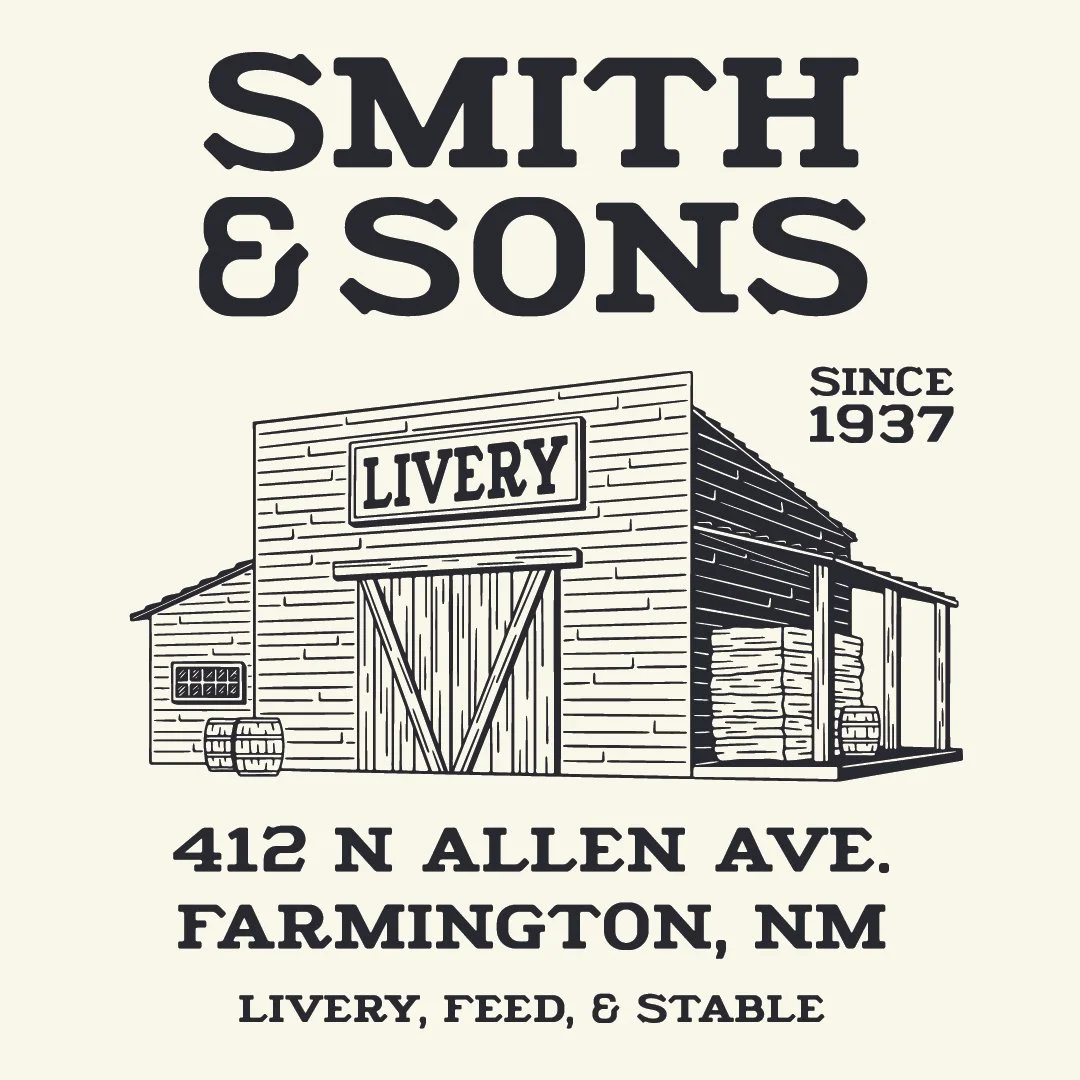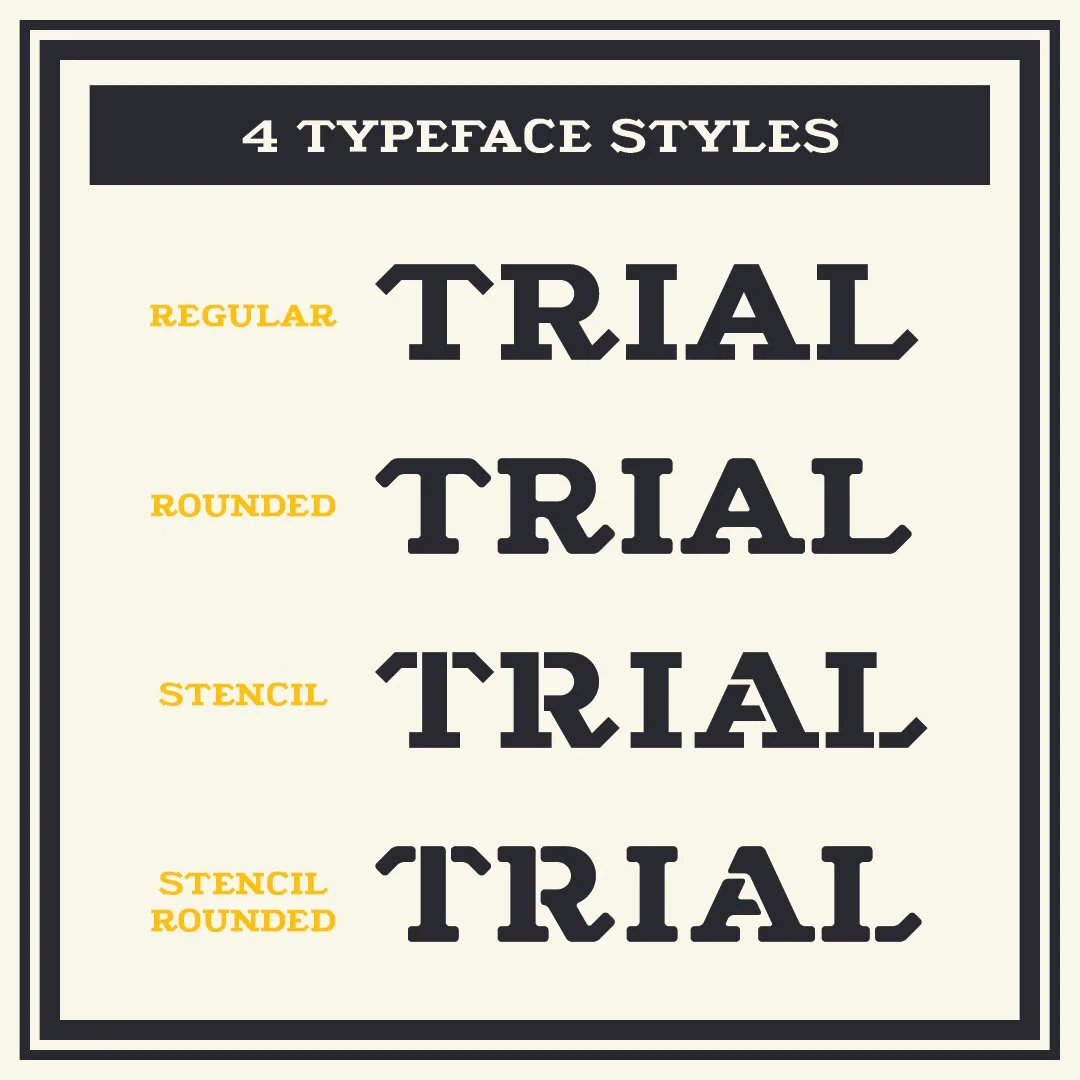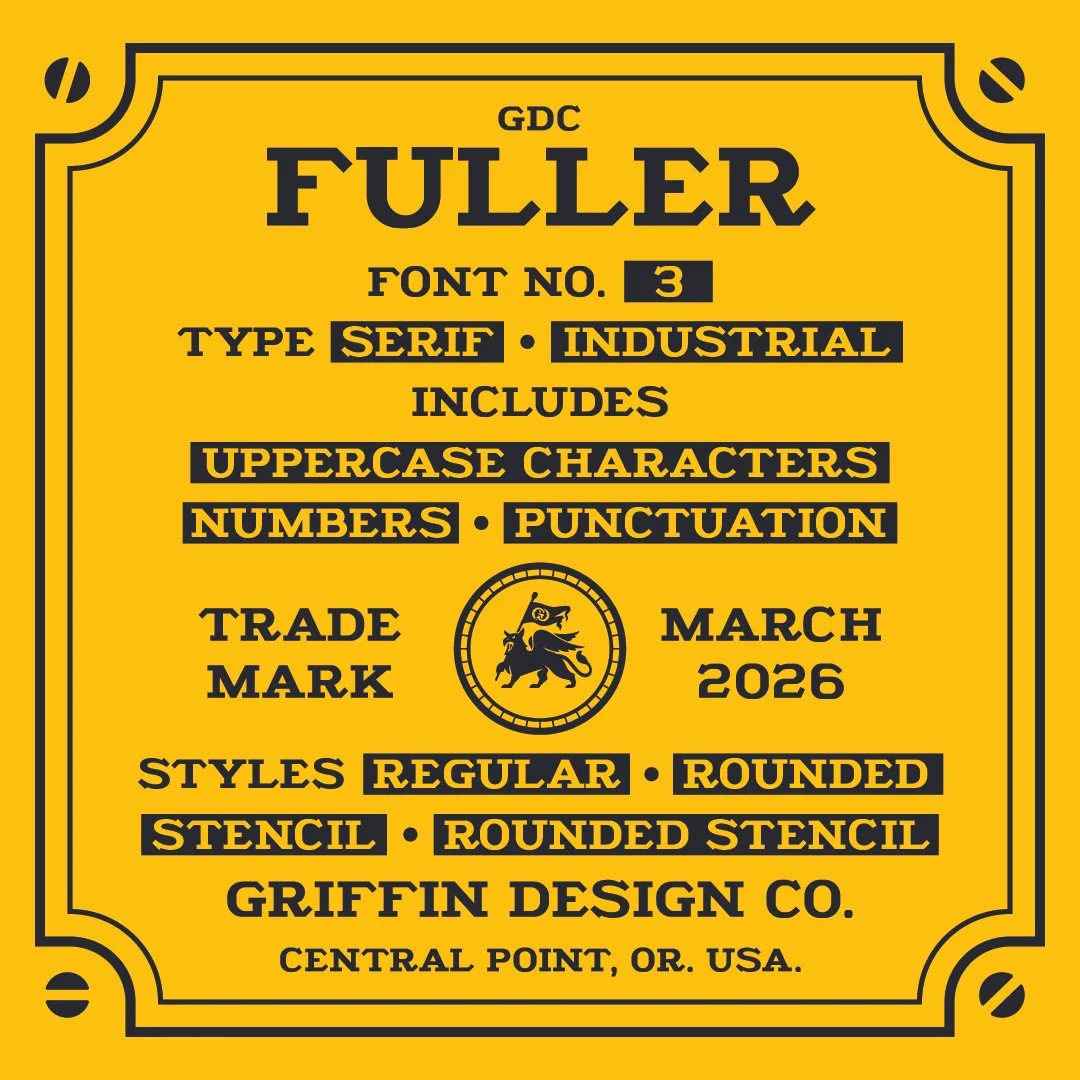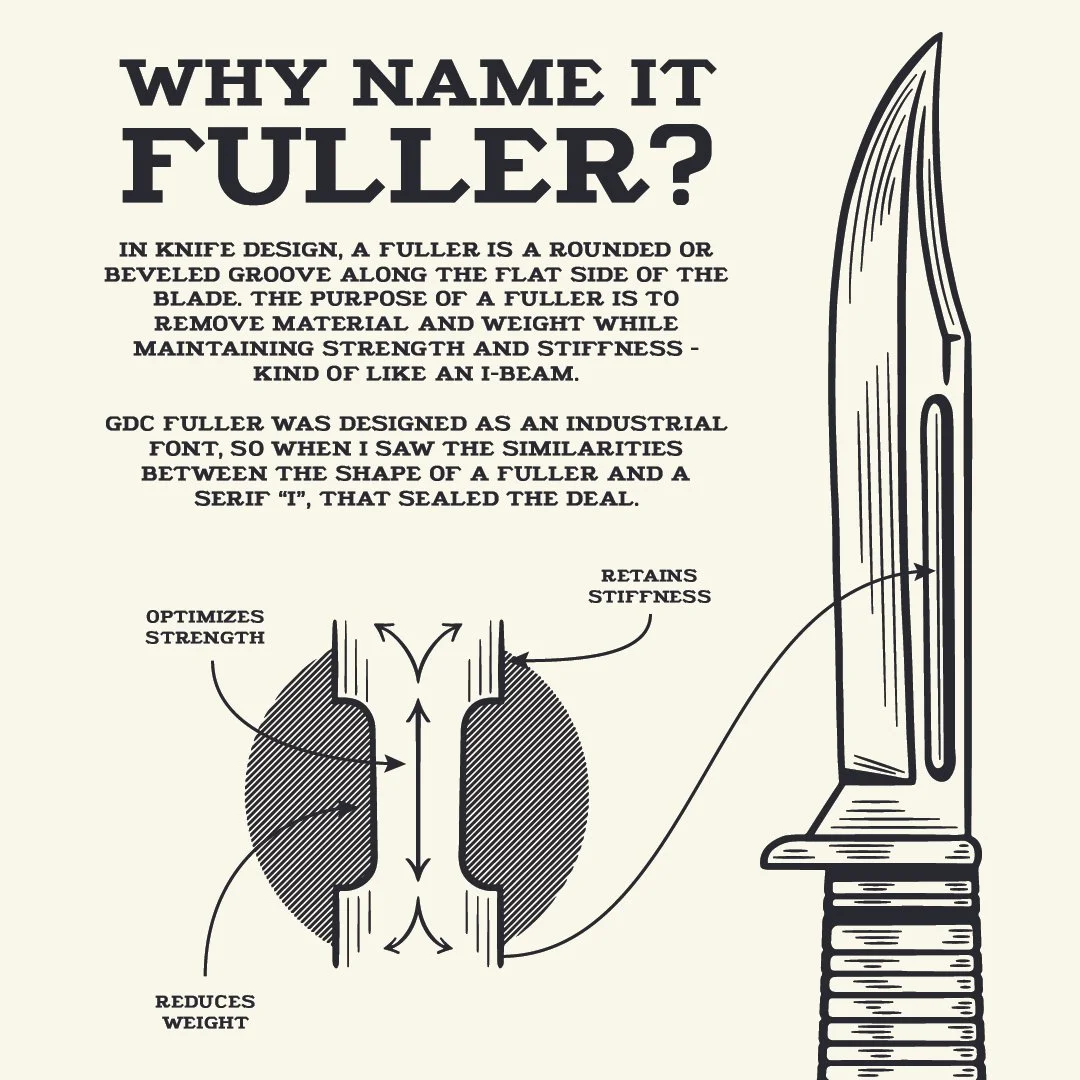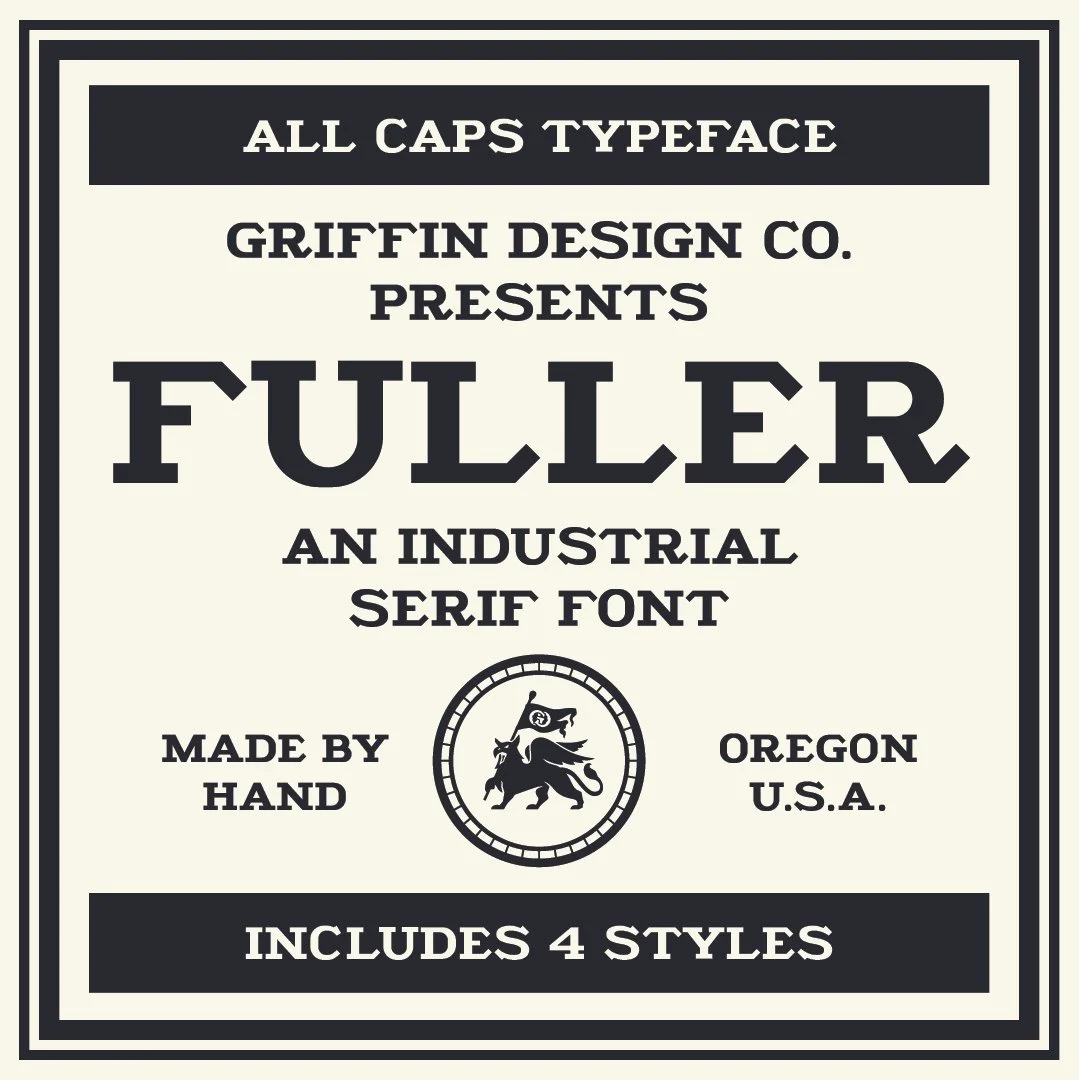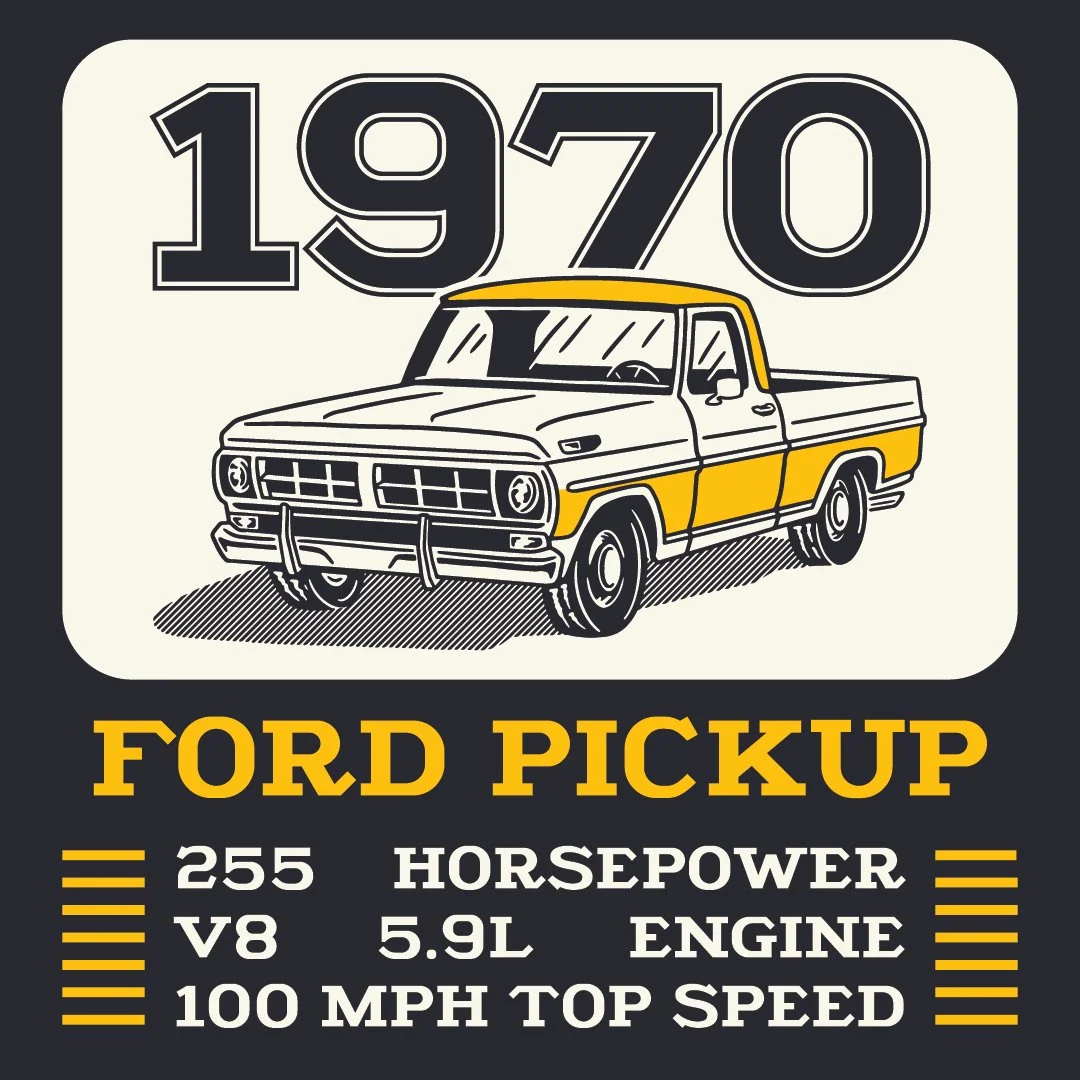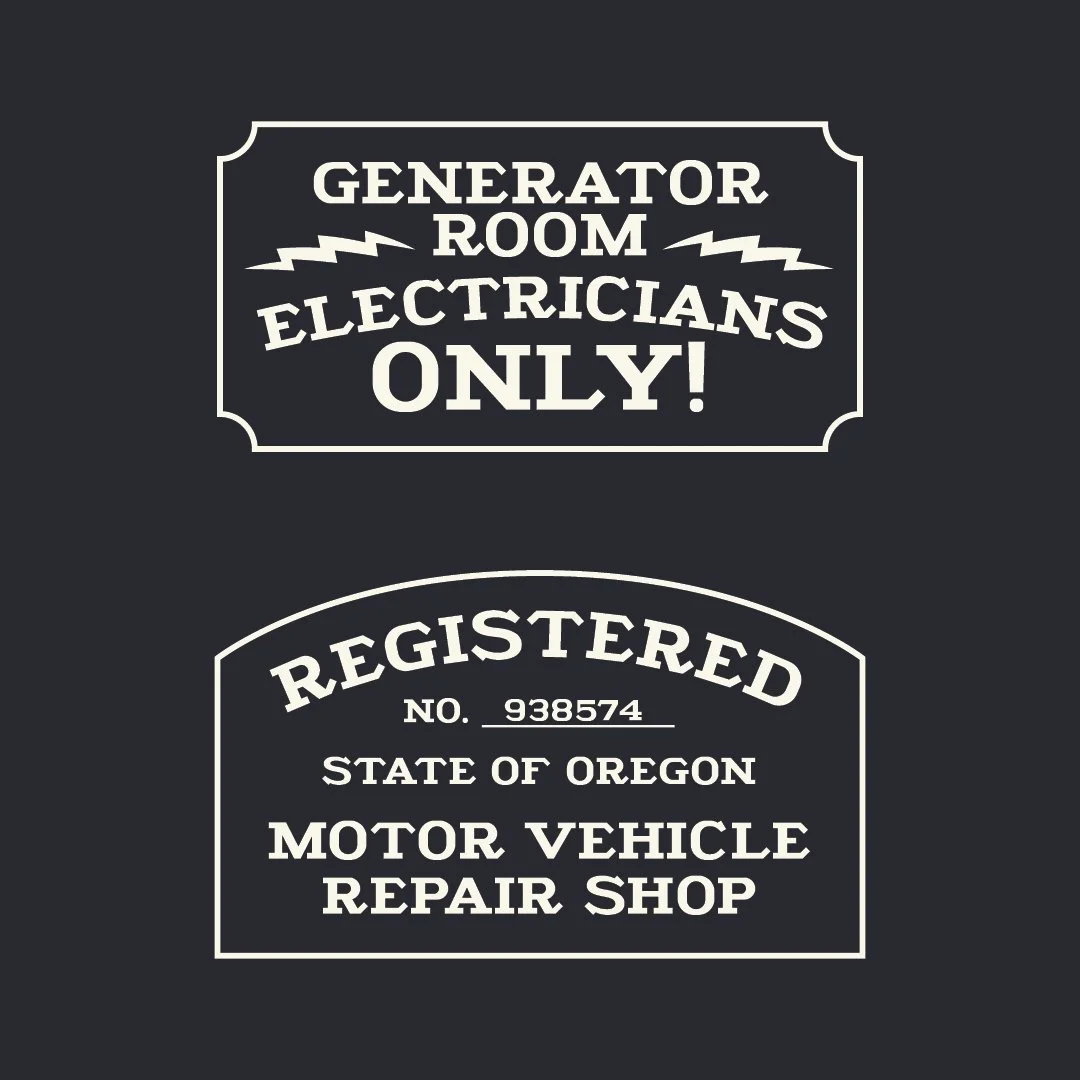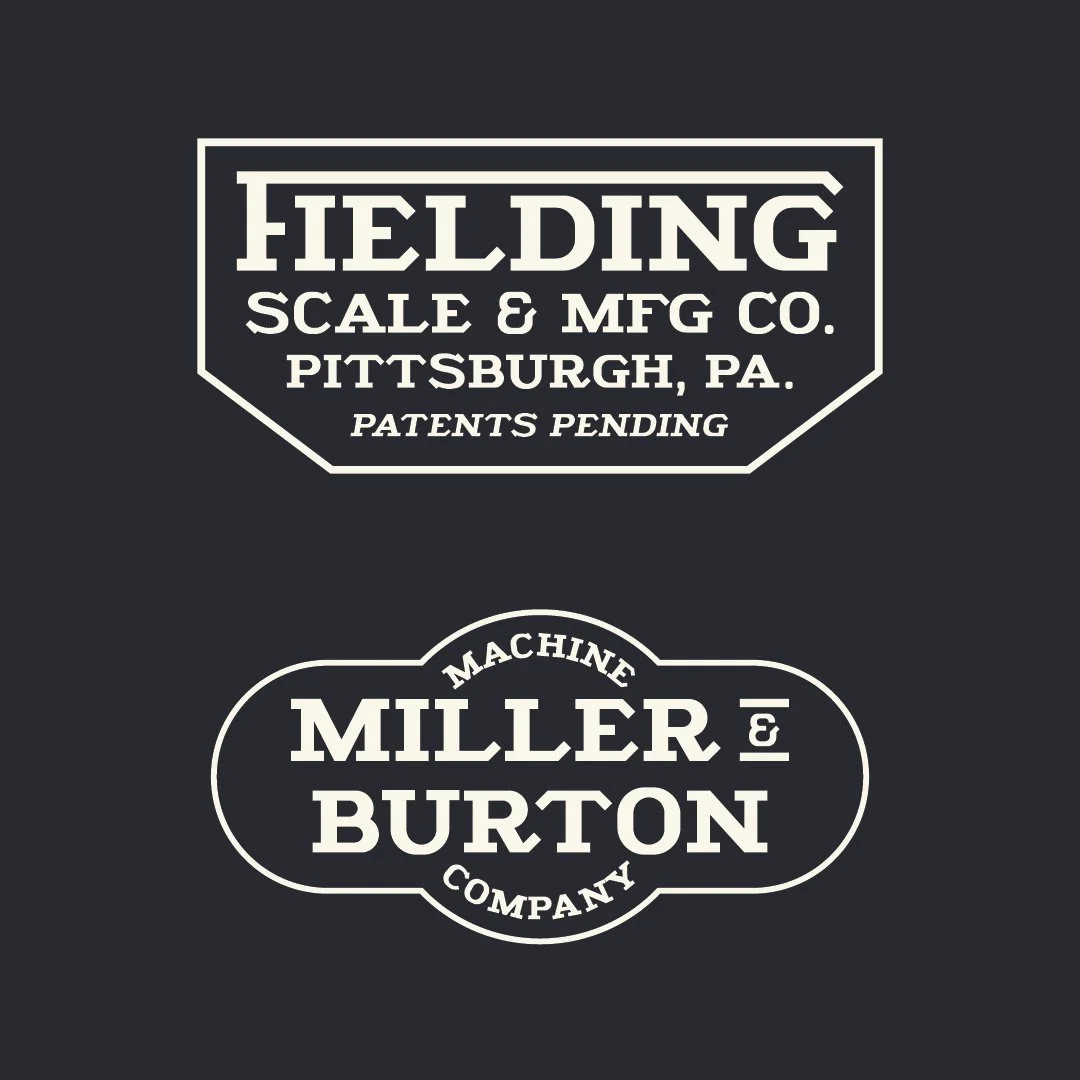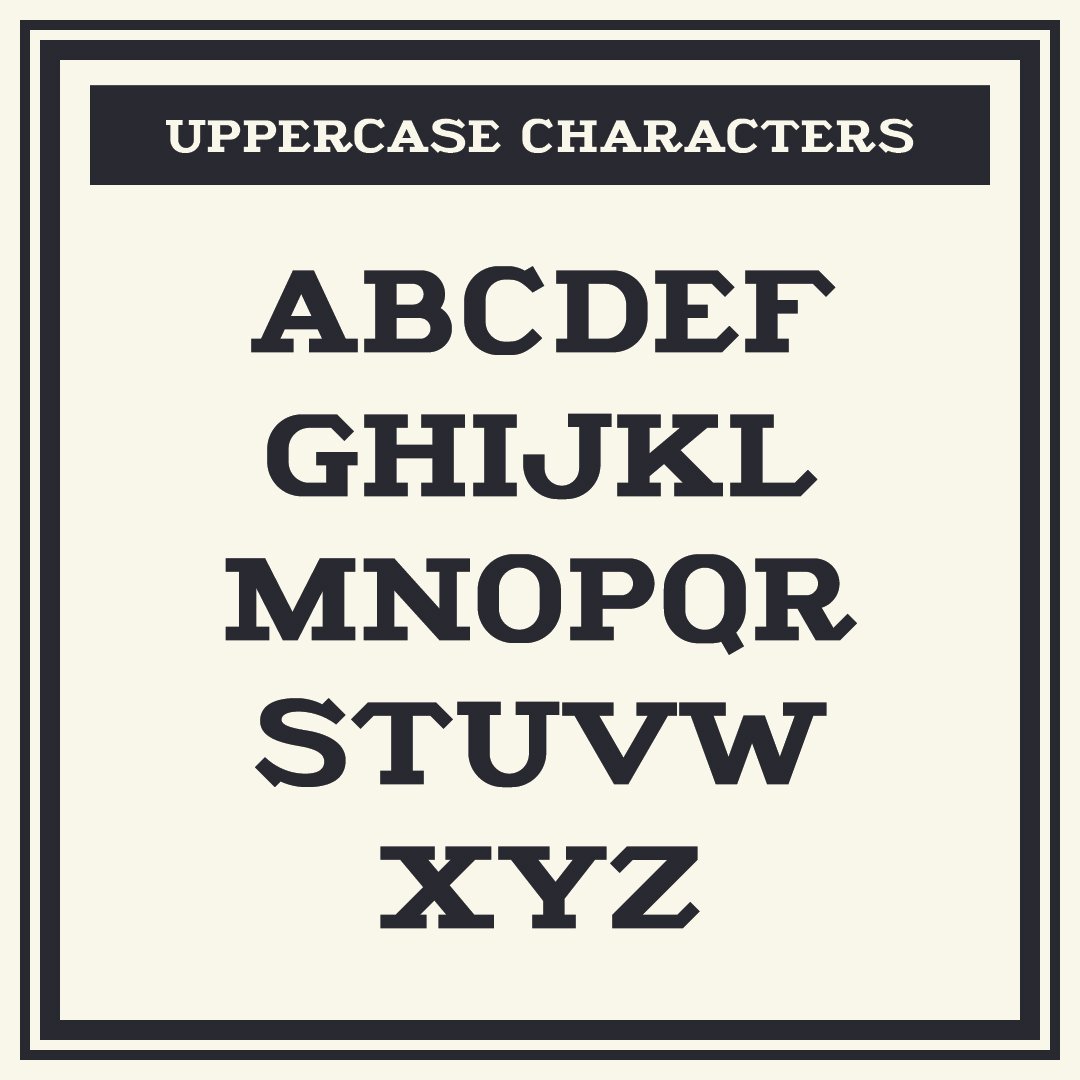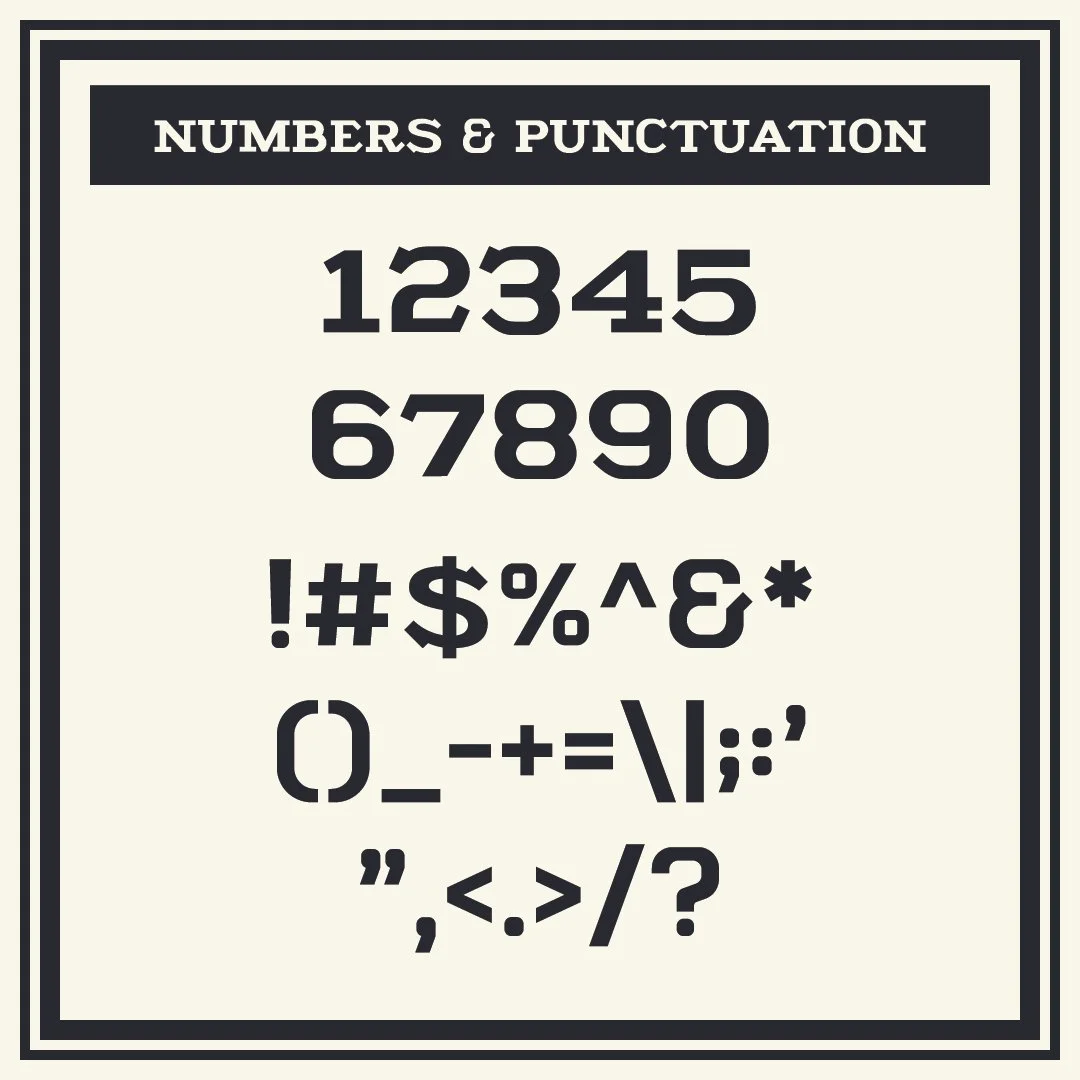
GDC Fuller Typeface
GDC Fuller is an industrial, serif typeface designed for hard use. This font includes uppercase letters, numbers, and punctuation and comes in 4 different styles.